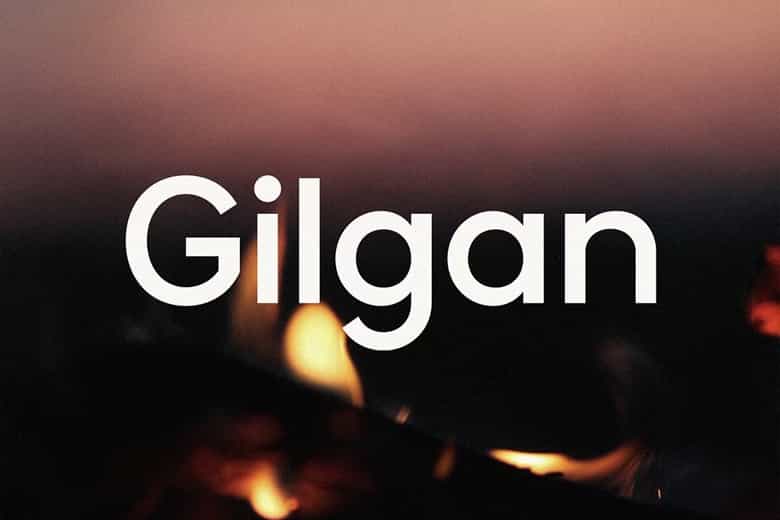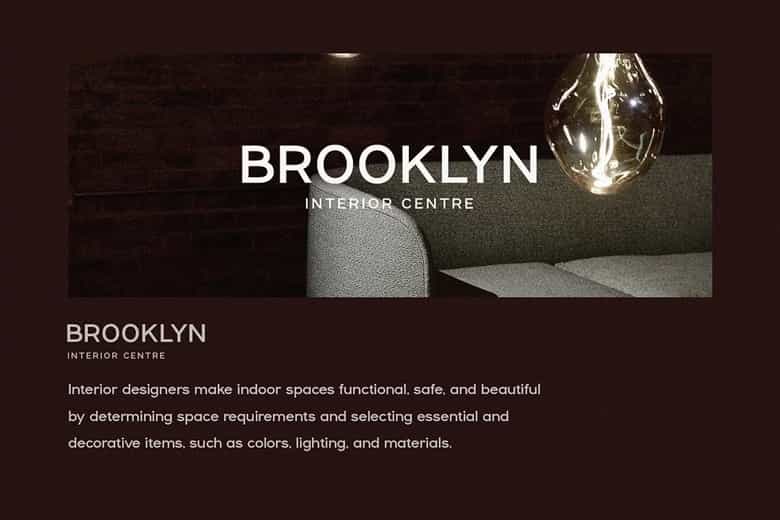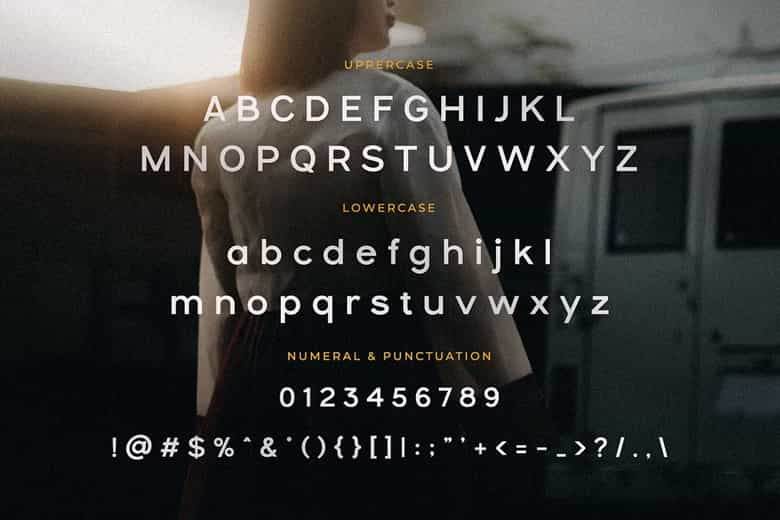
Gilgan is a new sans serif font suitable for display use with headings, logos, branding, magazines, product packaging and invitations. Gilgan come with clean lines and smooth curves give any project they are involved in an added classy look.